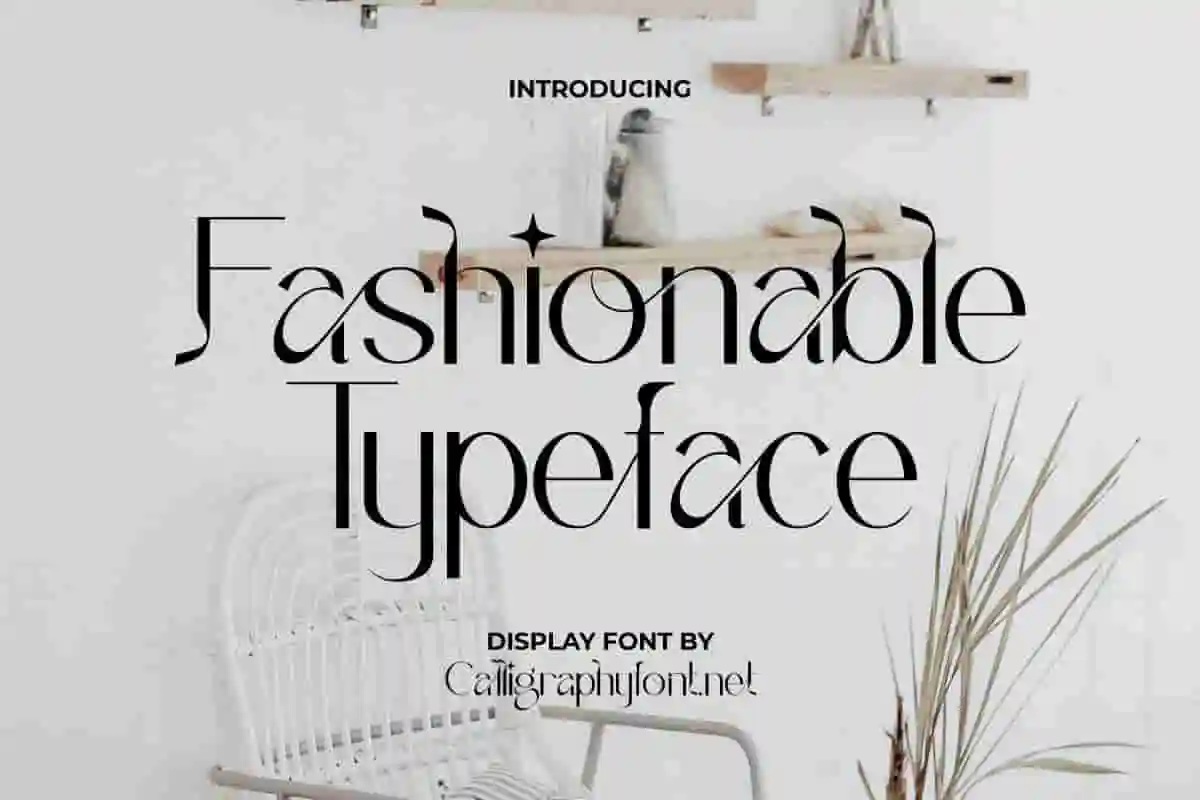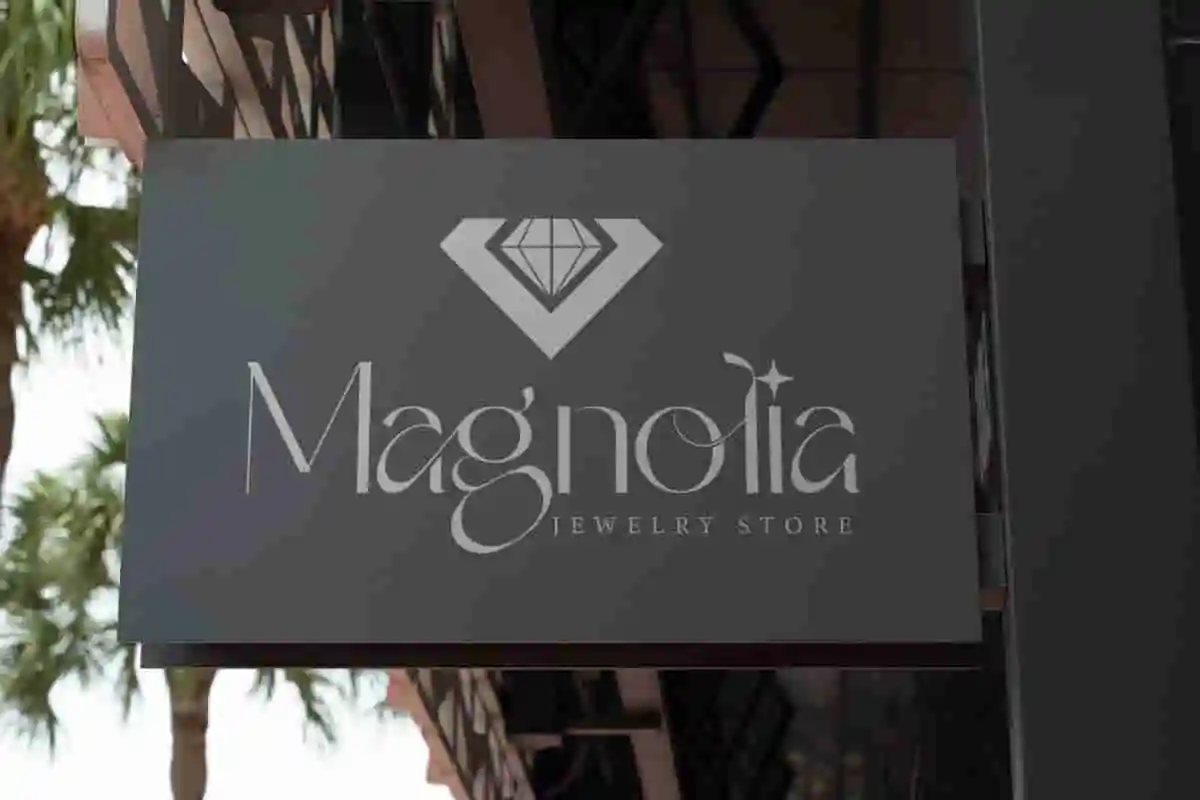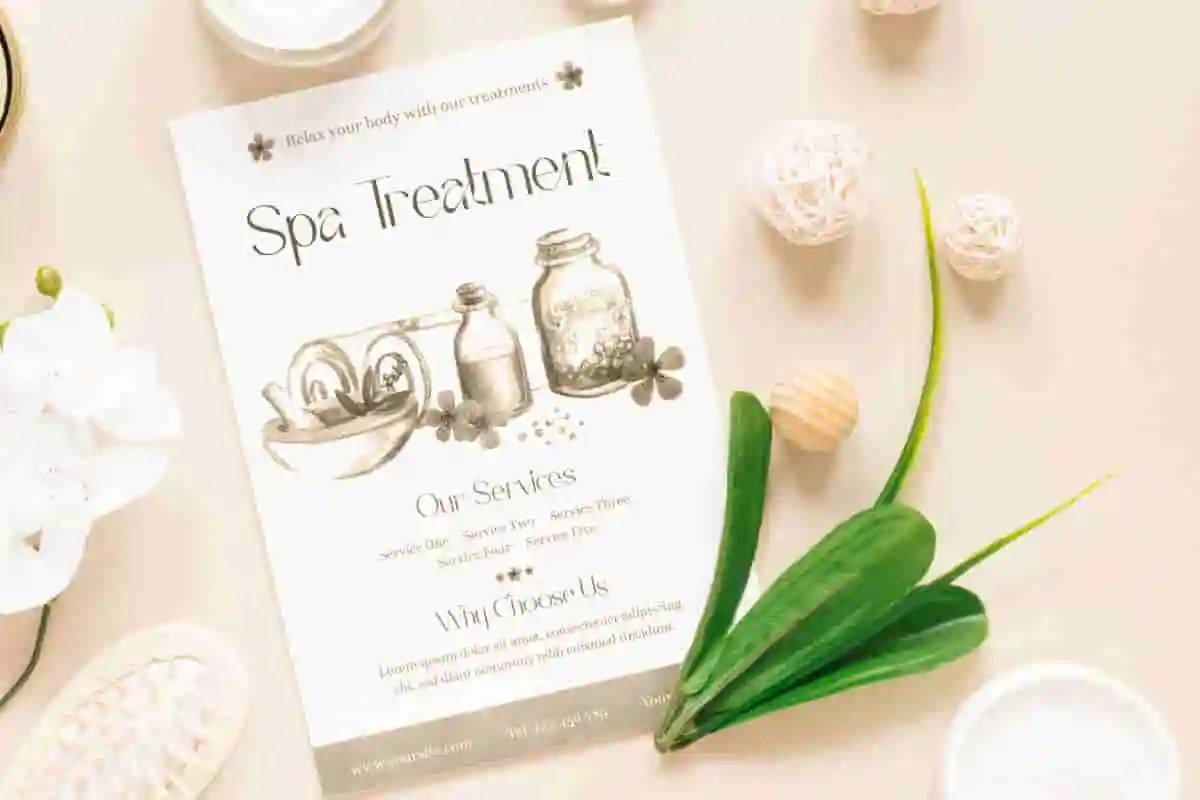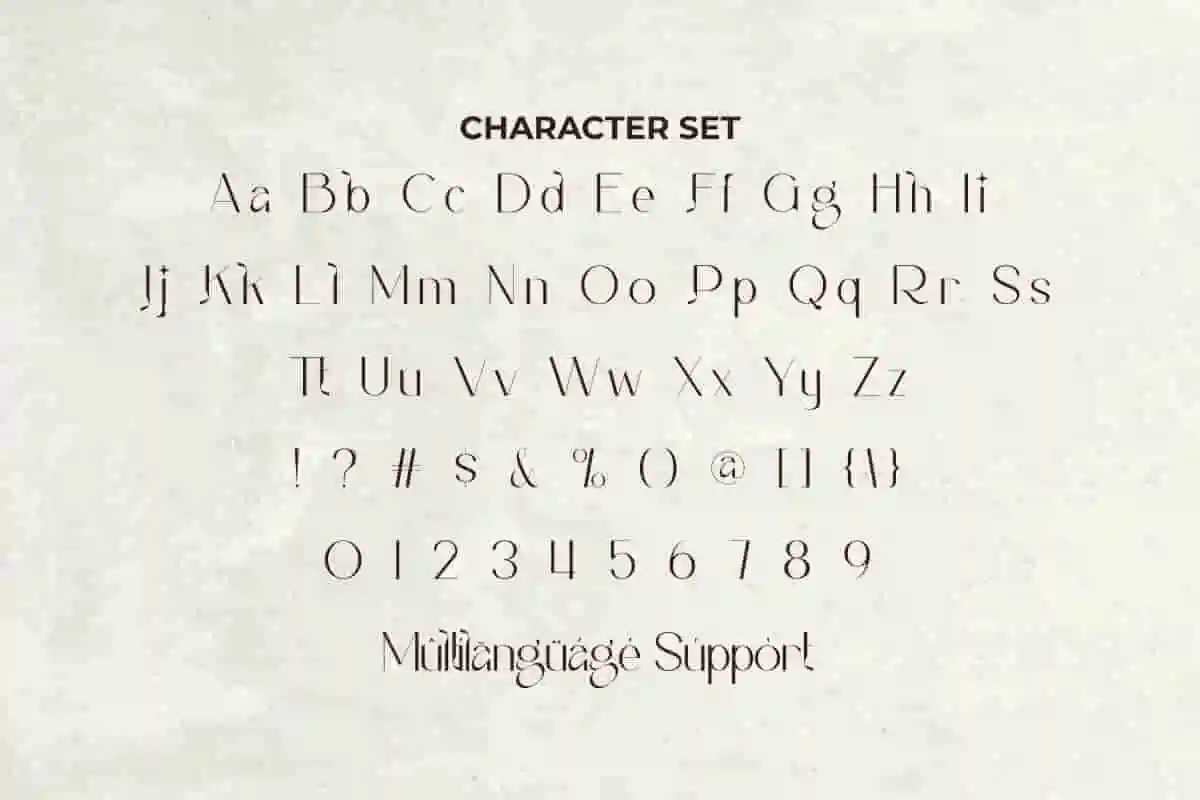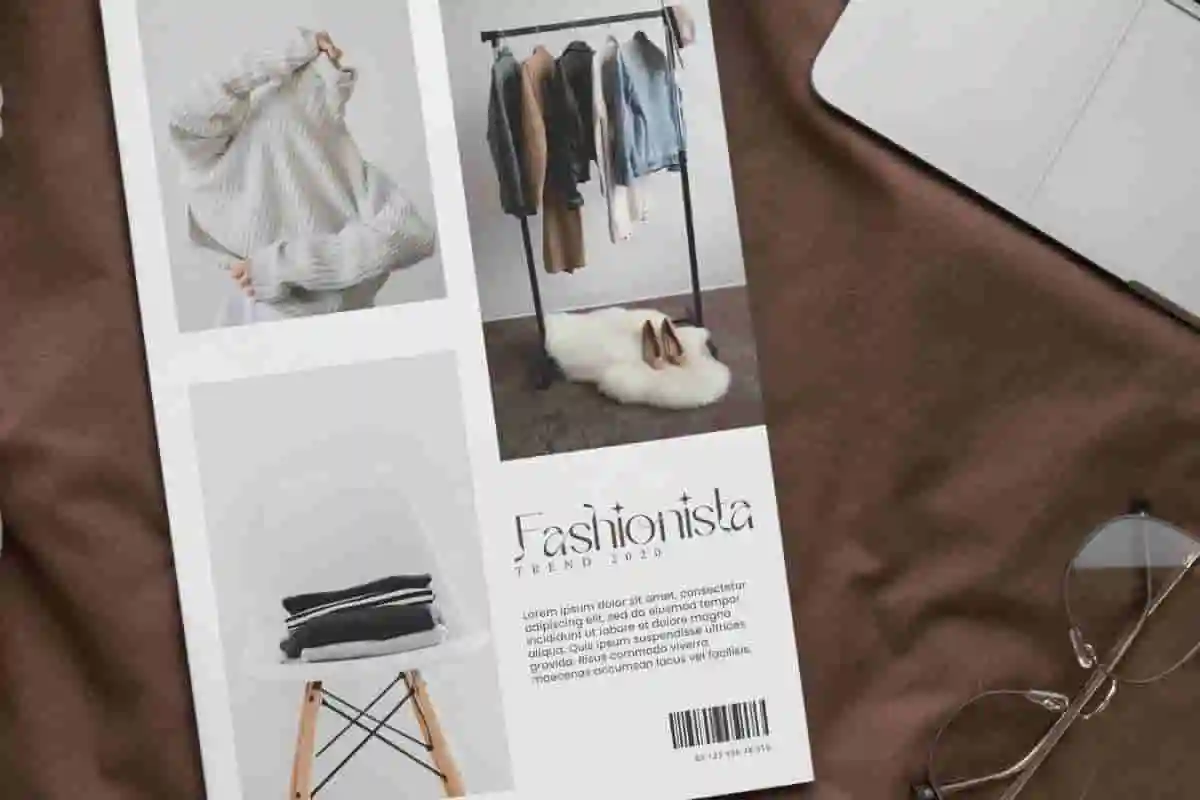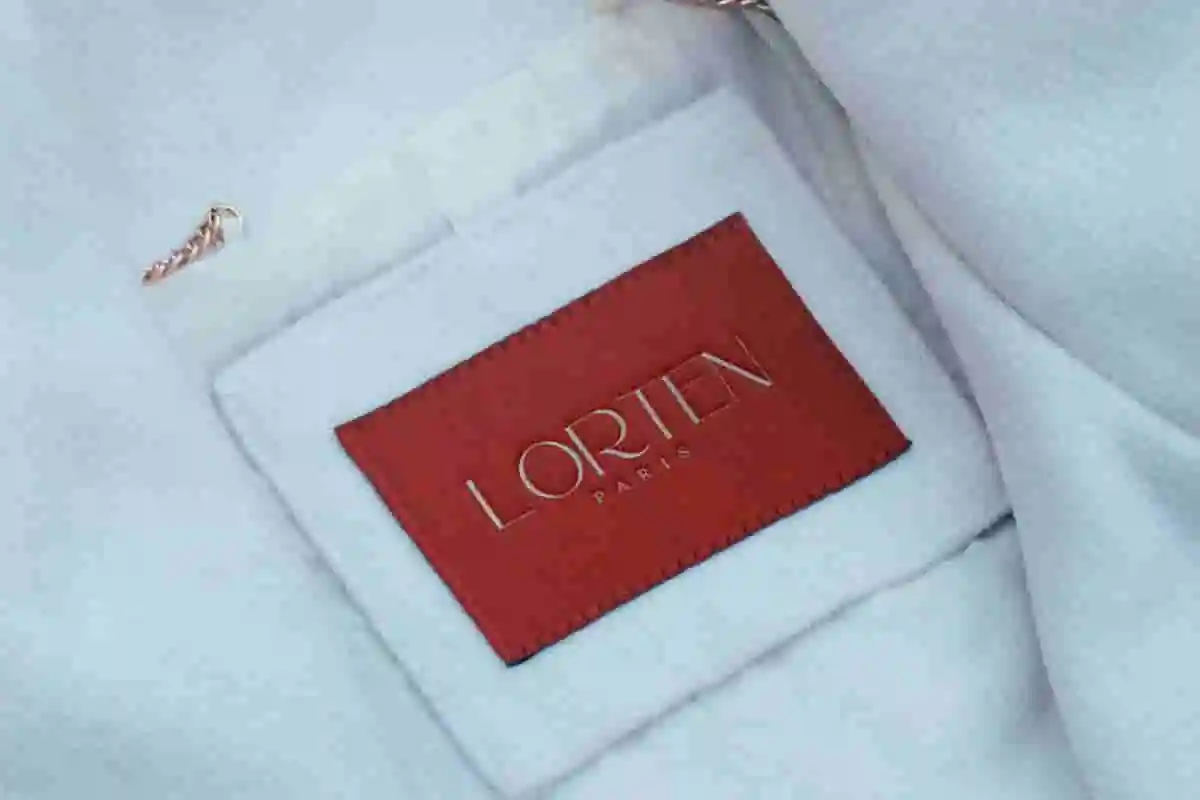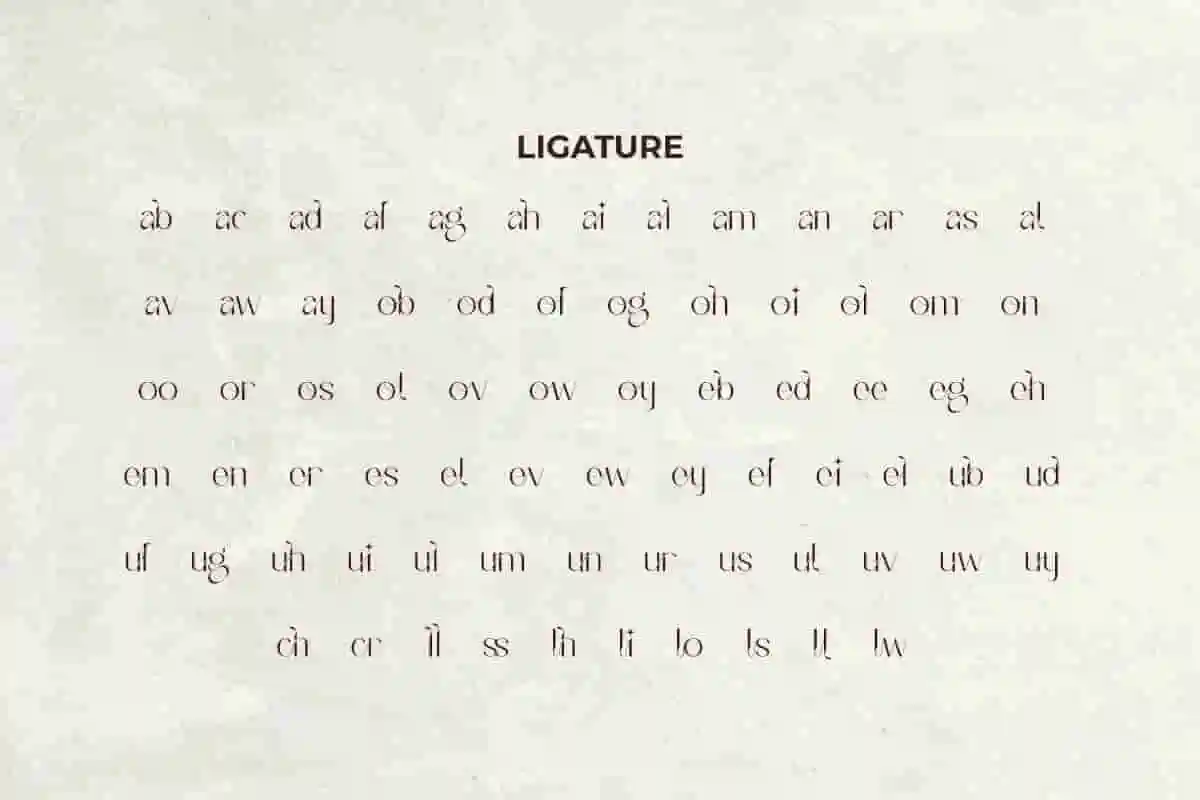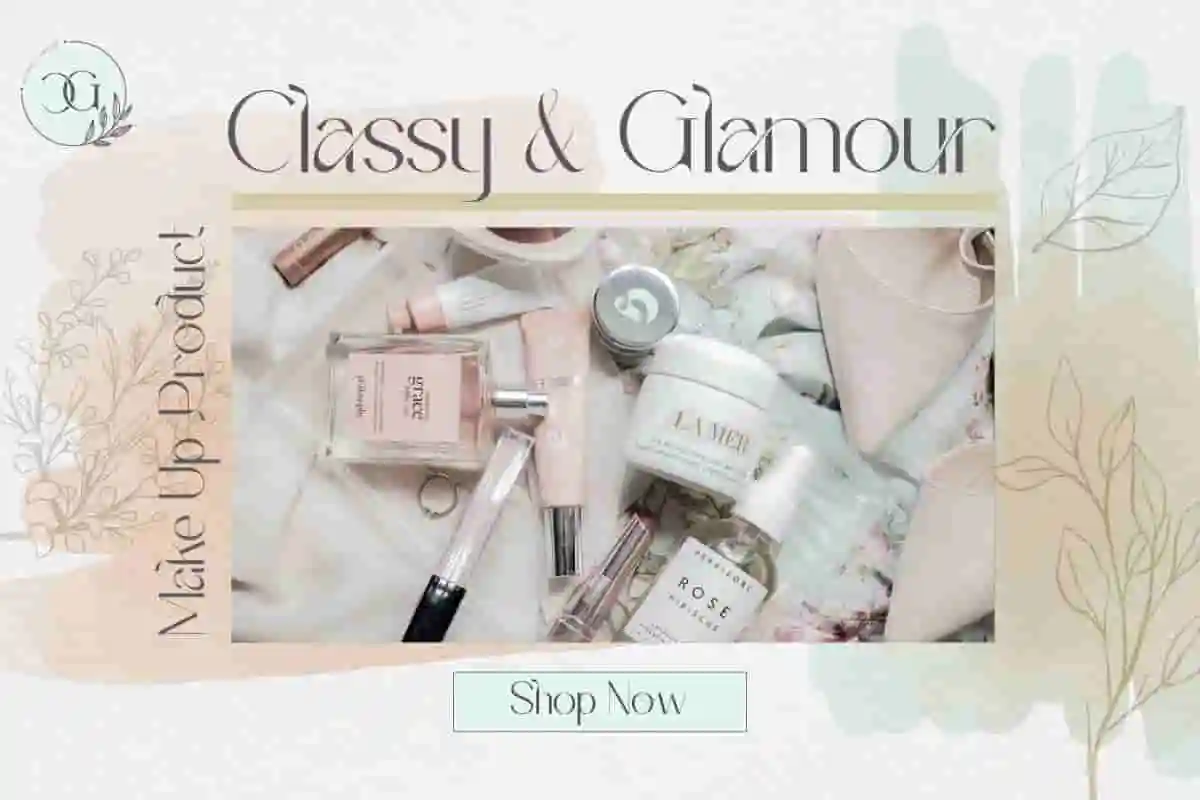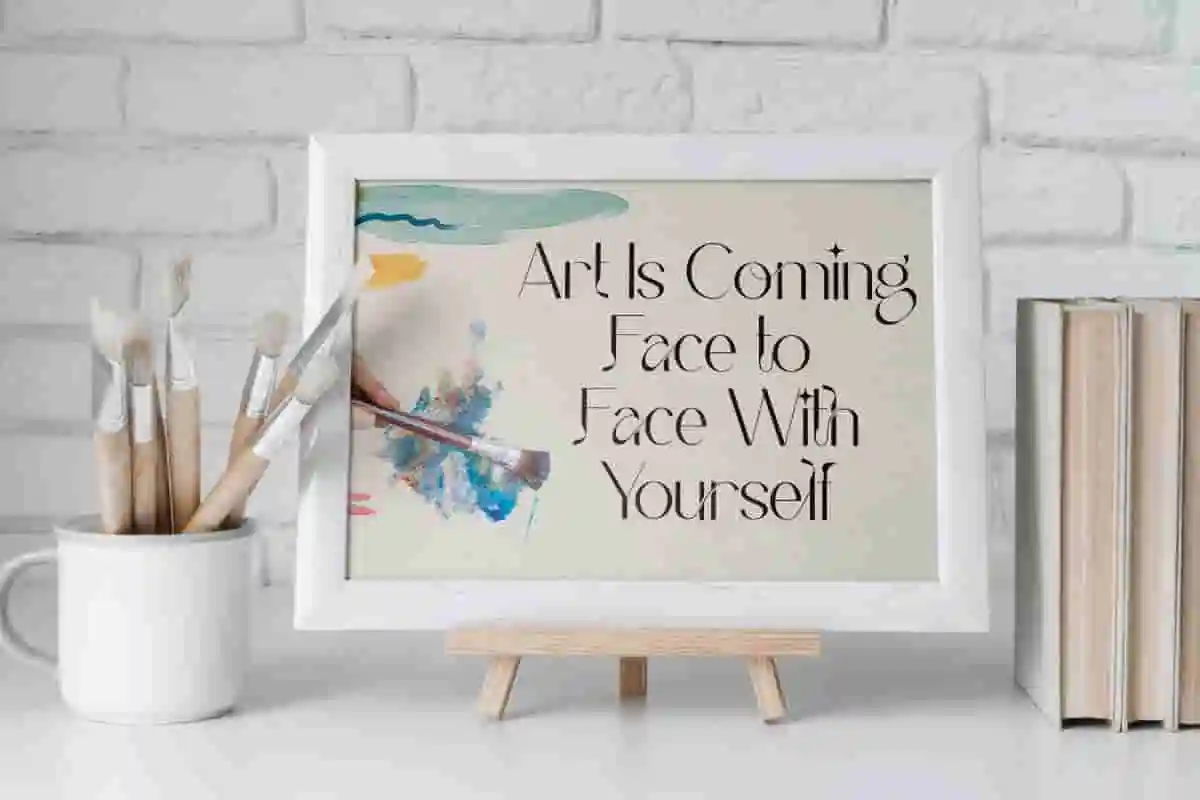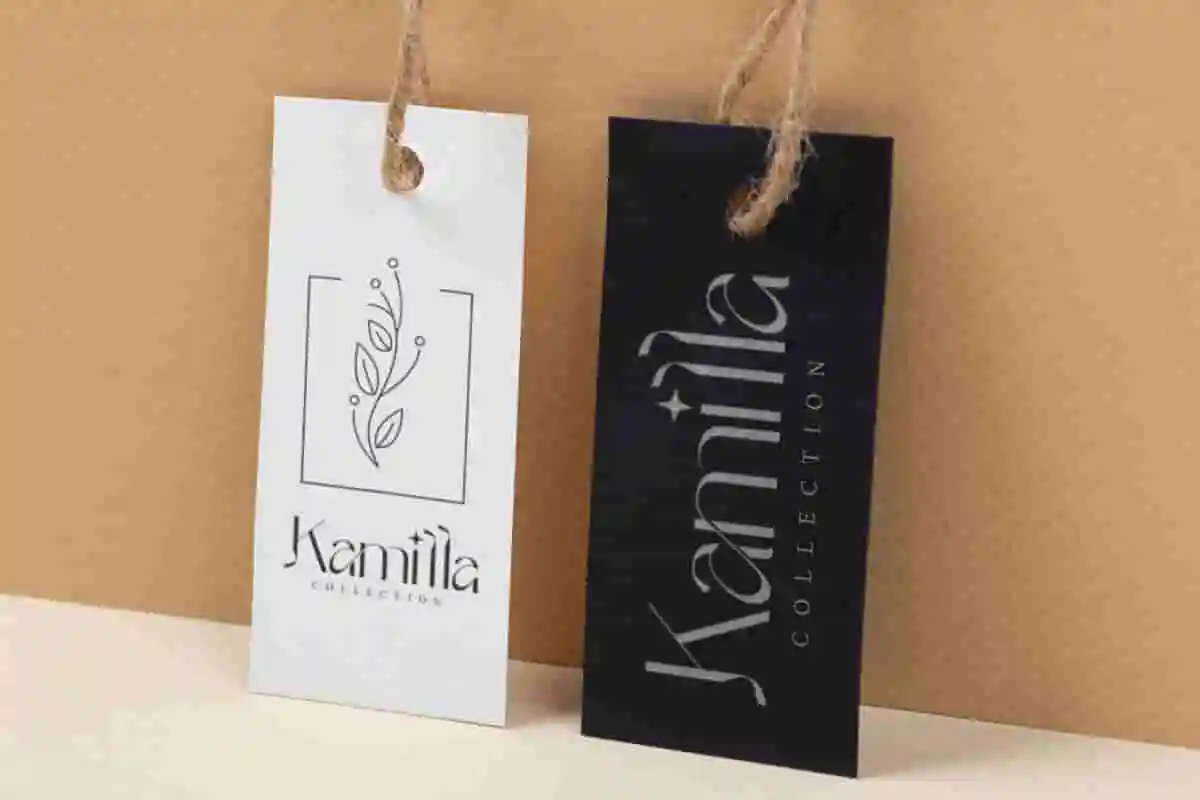
Fashionable Typeface Display Font
Fashionable Typeface Font is a stylish classy display font from CalligraphyFonts. The typeface is artistic and still easy to read so it is suitable for art gallery, blog header, fashion brand, jewelry, labels, magazine catalog, poster, price tag, signage, spa, stationery, and anything that requires a fashionable look.
Fashionable Typeface Font is a stylish display font inspired by the modern world of fashion. This typeface has a unique shape with perfect legibility and it suitable for any creative project, such as: brand logo, brochure, invitation, label, magazine , catalog, price tag, quote, signage, stationery, web head page, etc.
Introducing Fashionable Typeface, a sleek and stylish display font designed to bring sophistication and modern flair to your creative projects. Perfectly suited for fashion brands, lifestyle blogs, beauty packaging, and editorial headlines, this font adds an instant touch of elegance and trendiness.
Introducing Fashionable Typeface, a sleek and elegant display font designed to elevate your creative projects with a touch of modern sophistication. This typeface combines clean lines with refined details, making it the perfect choice for fashion brands, lifestyle blogs, beauty products, and editorial headlines.
Step into the world of style and sophistication with Fashionable Typeface, a bold and modern display font crafted for designers, influencers, and brands who want to make a lasting impression. This font blends contemporary minimalism with striking details, perfect for fashion labels, lifestyle blogs, and luxury packaging.
- Fashion and lifestyle branding
- Beauty and cosmetic packaging
- Social media posts, stories, and ads
Fashionable Typeface Font will be perfect for any industry, such as art gallery, boutique, cosmetic, event planner, fashion brand, florist, homeware, interior design, jewelry, movies, publishing, restaurant, salon, spa, writer, and anything that needs a charming look.
Fashionable Typeface Font comes with a full set of Uppercase and Lowercase Basic Characters, Number, a large range of Punctuation and Symbol, also supports multilingual characters. Ready to use both on Windows machine or Mac with simple installations. It’s tested to work well in the Adobe Apps (Illustrator, Adobe InDesign, Adobe Photoshop) CorelDraw, and others. PUA Encode Characters means you can access all the glyphs and other additional characters easily – Fully accessible without additional design software.